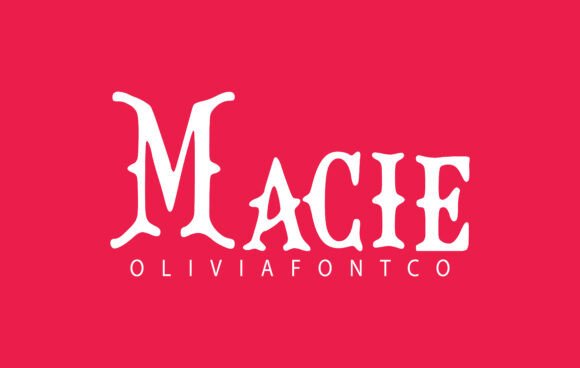
Macie: A Romantic Font for Creative Projects
Fonts play a crucial role in how we communicate through design. They set the tone, evoke emotions, and enhance visual appeal. Macie is an authentic font that brings a romantic and elegant touch to any project. Whether you're designing a wedding invitation, crafting a brand identity, or publishing content online, Macie offers both style and functionality.
What Makes Macie Unique?
Macie is a beautifully designed typeface with soft curves, balanced spacing, and a timeless aesthetic. It’s crafted to be highly legible while maintaining its artistic charm. This dual strength makes it versatile enough to serve as body text or standout headlines. The font exudes warmth and sophistication, making it ideal for projects where a personal or emotional connection is key.
Legibility Meets Style
Many decorative fonts sacrifice readability for flair, but Macie manages to strike the perfect balance. Its clean lines and consistent character shapes ensure that your message remains clear and engaging. At the same time, the subtle serifs and fluid strokes give it a refined, almost handwritten feel that sets it apart from more rigid sans-serif options.
Why Different Audiences Care About Macie
The appeal of Macie lies in its adaptability. Depending on your background and goals, this font can serve various purposes:
- Beginners: If you’re new to typography or graphic design, Macie is an excellent choice because it’s easy to use and aesthetically pleasing without being overly complex.
- Professionals: Designers and typographers appreciate Macie for its attention to detail and ability to complement high-end visuals and branding efforts.
- Entrepreneurs and Marketers: You might use Macie to elevate your product packaging, marketing materials, or social media posts to create a memorable impression.
- Bloggers and Publishers: For those who focus on written content, Macie adds a touch of personality to headlines and titles without compromising readability.
- Educators and Hobbyists: Teachers may find it useful for creating visually appealing handouts, while hobbyists could enjoy using it for personal projects like scrapbooking or invitations.
For Wedding Planners and Invitations
If you're in the event planning industry or organizing a wedding yourself, Macie is a dream come true. Its romantic feel makes it perfect for wedding invitations, save-the-dates, and ceremony programs. Unlike many script fonts that are hard to read, Macie maintains clarity even in smaller sizes, which is essential when including details like addresses and times.
For Branding and Logo Design
Business owners looking to build a strong brand identity will find Macie's elegance extremely useful. It works well for luxury brands, boutique stores, or any business aiming to convey a sense of warmth and authenticity. When paired with minimalist layouts or rich textures, Macie can become the cornerstone of your visual branding strategy.
How Macie Can Enhance Your Workflow
Choosing the right font isn’t just about aesthetics—it’s also about practicality. Here’s how Macie aligns with different priorities across audiences:
Quality and Presentation
Macie is optimized for professional printing and digital display, ensuring that your work looks polished in any format. The font includes multiple weights and styles (like bold and italic), giving you the flexibility to match it with other typefaces or emphasize certain parts of your design. This level of quality is particularly important for professionals and entrepreneurs who rely on first impressions to build trust and credibility.
Flexibility and Creativity
One of Macie’s greatest strengths is its versatility. It adapts well to various color schemes and backgrounds, making it suitable for both modern and traditional designs. Creators and marketers often look for fonts that can evolve with their projects—Macie fits that need by performing admirably in diverse contexts, from editorial layouts to web banners.
Speed and Reliability
With its straightforward character set and intuitive styling, Macie allows for quick implementation in design software. Freelancers and small business owners working under tight deadlines will value this efficiency. Plus, its reliable rendering across platforms ensures consistency whether your audience views your work on a phone, tablet, or desktop.
Cost and Accessibility
While some premium fonts come with hefty price tags, Macie offers an attractive combination of affordability and quality. Many creators, especially those on a budget, prefer fonts that deliver high visual impact without breaking the bank. As long as the license supports your intended use, Macie is a cost-effective option for both personal and commercial applications.
Practical Examples of Using Macie
To better understand how Macie can fit into your workflow, consider these real-world scenarios tailored to different users:
Final Thoughts
In the world of typography, finding the right balance between beauty and function is key. Macie stands out by offering that harmony, making it a valuable tool for anyone looking to infuse romance and elegance into their visual communication. From weddings to branding, and from blogs to business cards, Macie has the potential to elevate your work and leave a lasting impression. If your next project needs a font that speaks with grace and clarity, Macie could be the perfect choice.